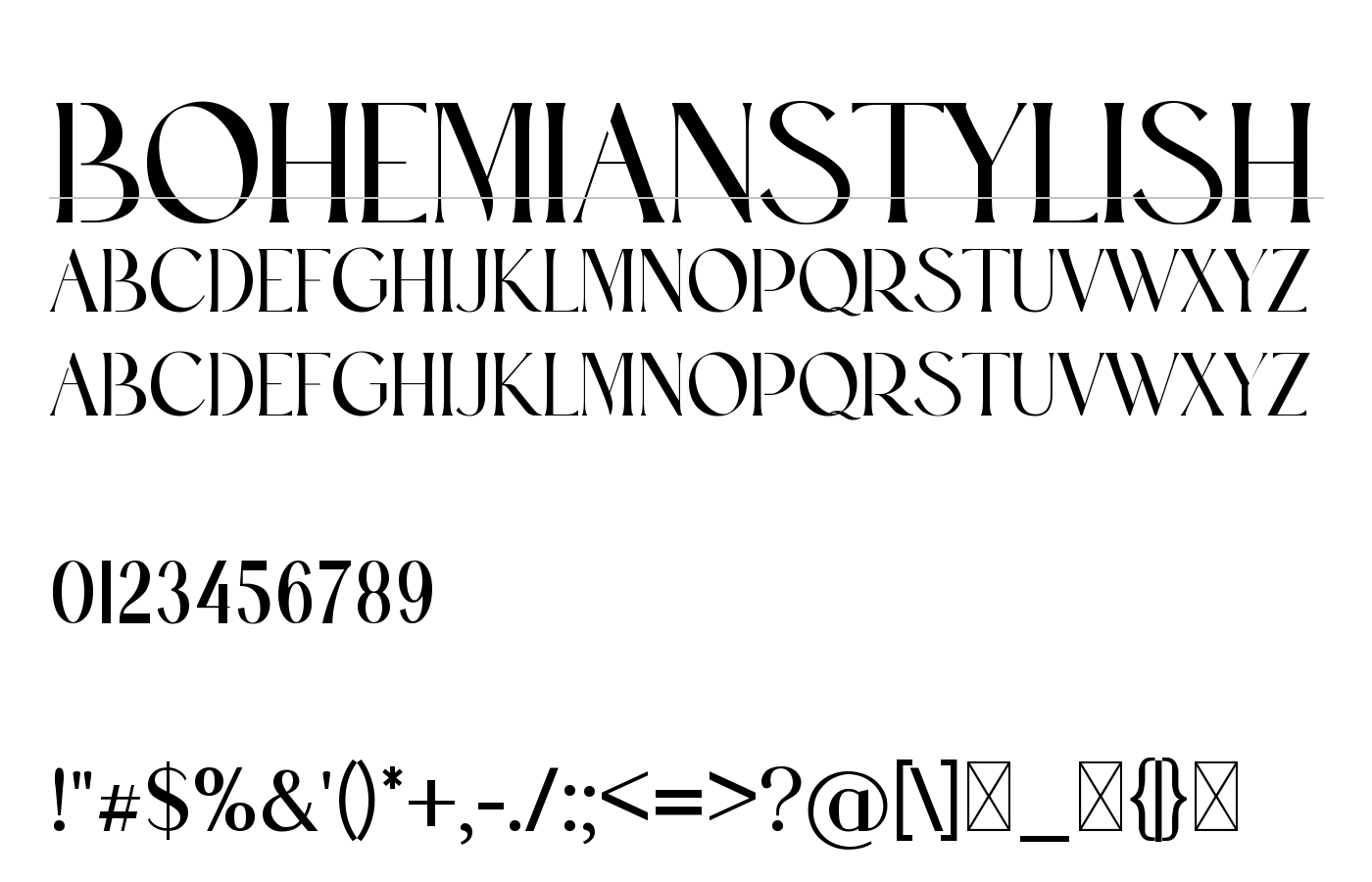
BohemianStylish is an elegant serif font with a modern flair, featuring high contrast between thick and thin strokes and thin, sharp serifs that give it a refined, luxurious feel. Its tall, narrow letterforms and unique curved details make it ideal for sophisticated branding, editorial headlines, and stylish packaging that demands a polished and distinctive look. This font works best where elegance and a touch of artistic style are key to creating a memorable impression.
BohemianStylish Font
About BohemianStylish Font